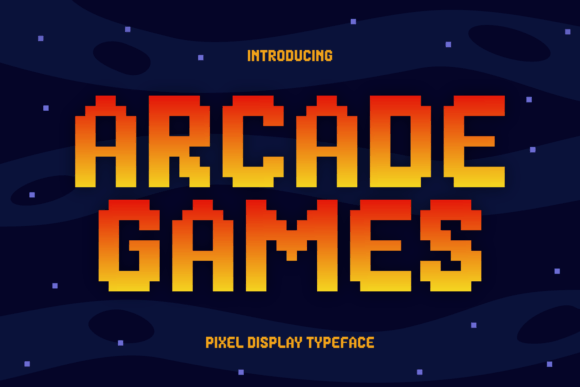
Arcade Games Font: Bringing Joy and Quirkiness to Your Designs
Are you looking for a font that can add a playful and fun touch to your designs? Look no further than the Arcade Games Font. This cute and quirky pixelated display font is perfect for designers who want to bring a sense of nostalgia and joy to their work. In this article, we’ll explore the features and benefits of Arcade Games Font, and how it can elevate your designs to the next level.
The Rise of Pixelated Fonts
In recent years, pixelated fonts have seen a resurgence in popularity. These fonts, characterized by their blocky and pixelated design, evoke a sense of nostalgia and retro charm. They’re often associated with old-school video games, computer graphics, and digital art. Pixelated fonts are not only visually striking but also versatile, making them suitable for a wide range of design applications.
Introducing Arcade Games Font
Arcade Games Font is a beautiful pixelated display font that’s designed to bring a sense of joy and quirkiness to your designs. Its pixelated design is reminiscent of classic arcade games, making it perfect for projects that require a retro or vintage feel. The font is carefully crafted to ensure that it’s both readable and visually appealing, making it suitable for use in a variety of contexts.
Key Features of Arcade Games Font
- Pixelated Design: Arcade Games Font features a pixelated design that’s both blocky and charming.
- Cute and Quirky: The font has a playful and whimsical feel that’s perfect for designs that require a touch of personality.
- Display Font: Arcade Games Font is designed specifically for display purposes, making it perfect for headlines, titles, and other attention-grabbing elements.
- Highly Readable: Despite its pixelated design, Arcade Games Font is highly readable, even at smaller sizes.
- Versatile: The font is suitable for a wide range of design applications, from digital graphics to print materials.
Benefits of Using Arcade Games Font
So, why should you choose Arcade Games Font for your designs? Here are just a few benefits of using this beautiful pixelated display font:
- Adds a Touch of Personality: Arcade Games Font brings a sense of joy and quirkiness to your designs, making them stand out from the crowd.
- Evokes Nostalgia: The font’s pixelated design is reminiscent of classic arcade games, making it perfect for projects that require a retro or vintage feel.
- Improves Readability: Despite its decorative nature, Arcade Games Font is highly readable, making it suitable for use in a variety of contexts.
- Increases Engagement: The font’s playful and whimsical feel can help increase engagement and capture the attention of your audience.
Using Arcade Games Font in Your Designs
So, how can you use Arcade Games Font in your designs? Here are a few ideas to get you started:
- Headlines and Titles: Use Arcade Games Font to create attention-grabbing headlines and titles that set the tone for your design.
- Digital Graphics: The font is perfect for digital graphics, such as social media posts, flyers, and brochures.
- Print Materials: Arcade Games Font can also be used in print materials, such as posters, business cards, and stickers.
- Branding and Identity: Use the font to create a unique and memorable brand identity that stands out from the crowd.
Tips for Getting the Most Out of Arcade Games Font
Here are a few tips for getting the most out of Arcade Games Font:
- Experiment with Colors: The font looks great in bright, bold colors, so don’t be afraid to experiment and find the perfect hue for your design.
- Mix and Match: Try pairing Arcade Games Font with other fonts to create a unique and visually appealing combination.
- Play with Size: The font looks great at a range of sizes, so don’t be afraid to experiment and find the perfect size for your design.
- Keep it Simple: While Arcade Games Font is a decorative font, it’s still important to keep your design simple and easy to read.
In conclusion, Arcade Games Font is a beautiful pixelated display font that’s perfect for designers who want to add a touch of joy and quirkiness to their designs. With its cute and quirky design, high readability, and versatility, this font is suitable for a wide range of design applications. Whether you’re creating digital graphics, print materials, or branding and identity designs, Arcade Games Font is sure to bring a sense of nostalgia and fun to your work.
- What is Arcade Games Font? Arcade Games Font is a pixelated display font designed to bring a sense of joy and quirkiness to your designs.
- What is the font style? The font style is pixelated and decorative, with a cute and quirky feel.
- Is the font readable? Yes, Arcade Games Font is highly readable, even at smaller sizes.